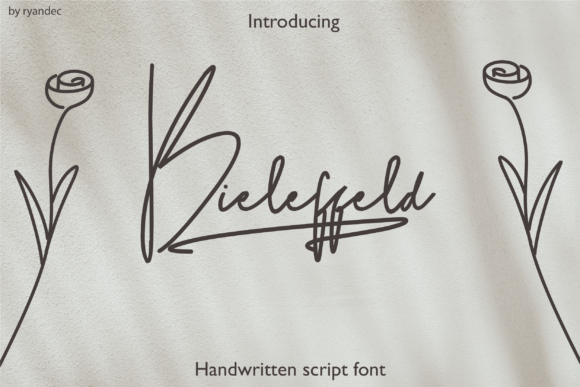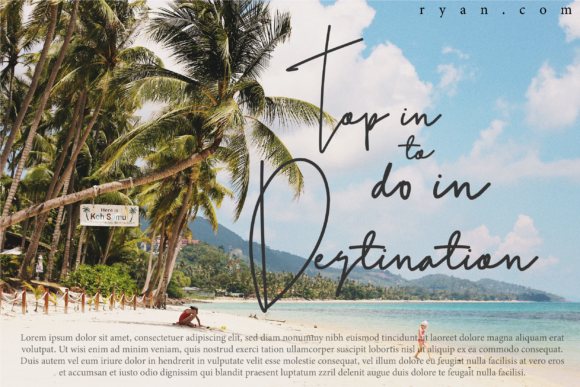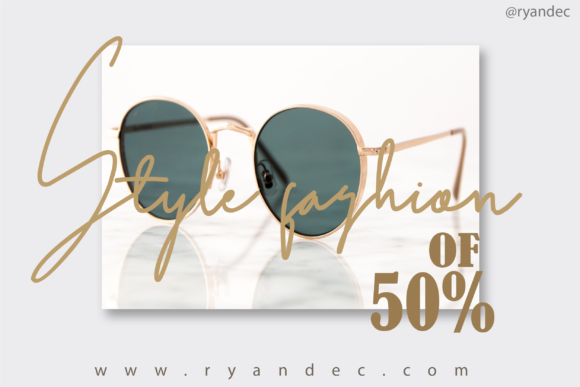
About Bieleffed Script Font
Bieleffed Script is a slim and delicate script font. It looks stunning on wedding invitations, thank you cards, quotes, greeting cards, logos, business cards and every other design which needs a handwritten touch.